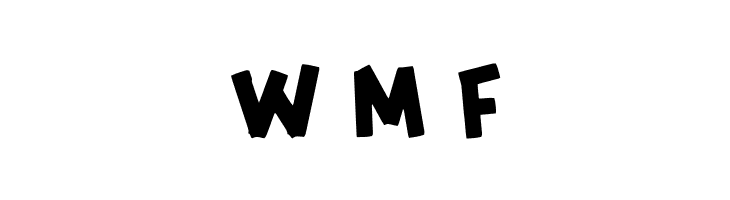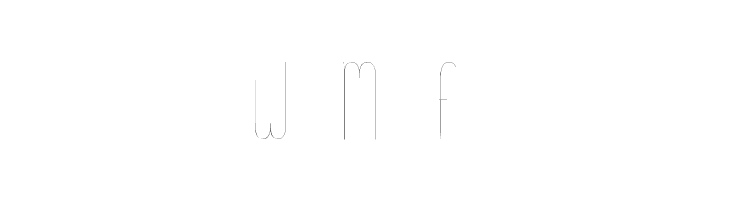
• Bao Buns
A bold, graffiti-inspired font with sharp, angular edges and dynamic styling.
• Baol Regular
A bold, geometric font with a modern and angular design.
• Baol-Regular
A bold, geometric font with sharp, angular edges and a modern industrial feel.
• Bapak Polisi
A bold, dynamic handwritten font with thick strokes and a playful style.
• Bapakmu_
A bold, playful script font with a handwritten style.
• Bapakmu_
A bold, playful script font with a handcrafted feel.
• Baphomet!"
A bold, gothic font with sharp, angular edges and a dramatic style.
• Baqa
A playful, handwritten font with bold, rounded strokes.
• Baqacents Semi Bold
A modern, semi-bold font with clean lines and a strong presence.
• Baqillugs
A bold, expressive script font with dynamic brush strokes and fluid motion.
• Baques Handtam
A bold, classic serif font with high contrast and distinctive character features.
• Bar Booth at Matts
A bold, distressed font with a vintage, industrial style.
• Bar Cantabria
A bold, playful font with thick, rounded strokes and a hand-drawn appearance.
• Bar el Loro
A bold, rugged font with a distressed, vintage appearance.
• Bar La Amistad
A bold, geometric font with high contrast and a modern, decorative style.
• Barachiel
A playful and elegant script font with a handwritten style.
• Baraka Regular
A bold, decorative font with intricate internal patterns and a 3D shadow effect.
• Barattiel
A sophisticated script font with flowing, cursive strokes and elegant flourishes.
• Barattiel
A flowing, cursive script font with elegant, connected strokes.
• Barazhad